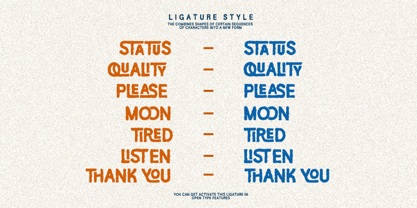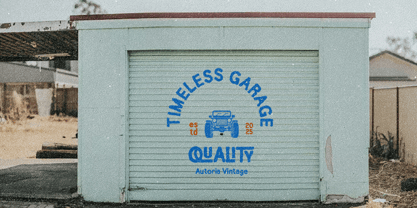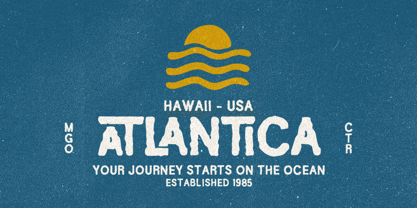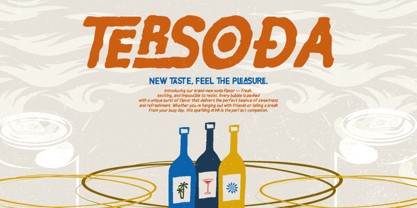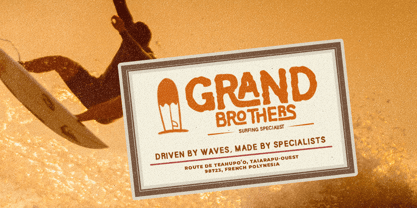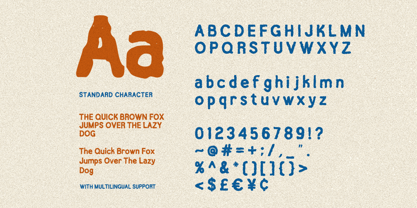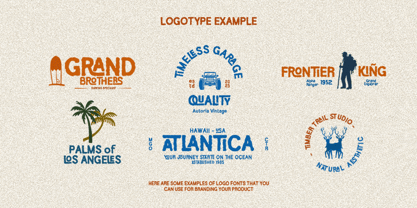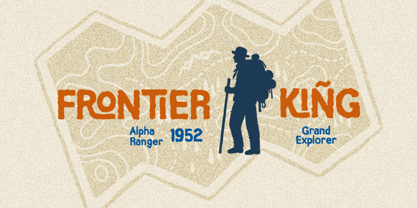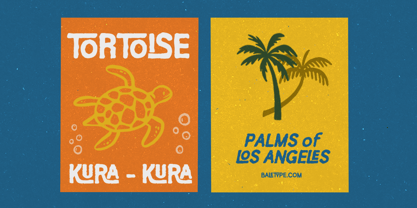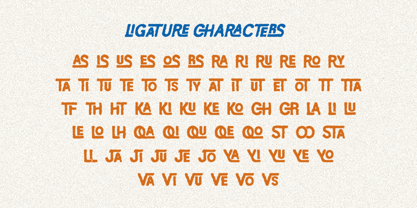
The Western Island
by Bale Type
The The Western Island Font Family was designed by Albin Pawaz and published by Bale Type. The Western Island contains 2 styles and family package options. More about this family
The Western Island is a sans-serif font with a rugged, handcrafted feel, featuring a diverse range of unique ligatures that lend character and personality to any design. It is perfectly suited for logos, posters, branding, packaging, apparel, and various creative projects that prioritize a bold, handcrafted aesthetic. With its distinctive letterforms and captivating ligature combinations, the font makes your designs stand out while maintaining a natural, authentic vibe. Whether for vintage-inspired or modern rustic concepts, The Western Island offers both versatility and originality. It also includes multilingual support, making it ideal for international design projects.
Designers: Albin Pawaz
Foundry: Bale Type